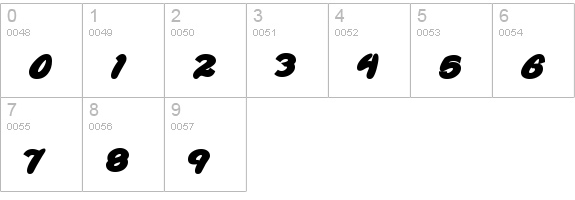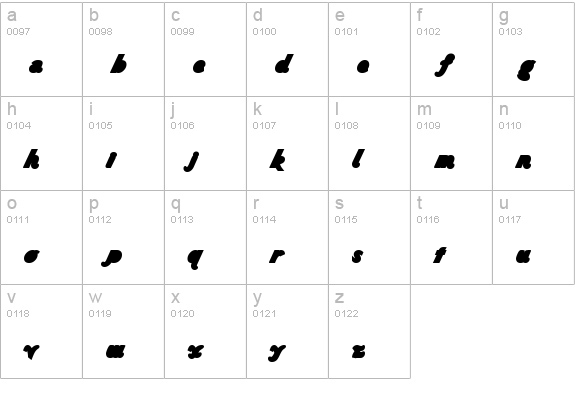
Wild Ride Back Fill Font Details
Introducing Wild Ride Back Fill font, a captivating typeface that brings a sense of adventure and excitement to your designs. With its bold and dynamic letterforms, this font is sure to make a lasting impression. Wild Ride Back Fill font is perfect for a variety of creative projects, from eye-catching posters and flyers to unique branding and packaging designs. Its rugged and edgy appearance adds a touch of rebelliousness, making it ideal for projects that require a bold statement. One of the best things about Wild Ride Back Fill font is that it is available for free! That's right, you can freely download this font at FontsMarket.com, allowing you to enhance your designs without breaking the bank. Whether you're a professional designer or a hobbyist, this free font is a valuable addition to your collection. With Wild Ride Back Fill font, you have the freedom to experiment and unleash your creativity. Its versatility allows it to be used in various design styles, from vintage and retro to modern and futuristic. The unique fill effect gives your text a three-dimensional appearance, adding depth and dimension to your designs. This font is not only visually striking but also highly legible, ensuring that your message gets across effectively. Its well-crafted letterforms and attention to detail make it a pleasure to work with, saving you time and effort in your design process. So, why wait? Download Wild Ride Back Fill font for free at FontsMarket.com and embark on a wild typography journey. Let your imagination run free and create designs that leave a lasting impression. With this font, the possibilities are endless.